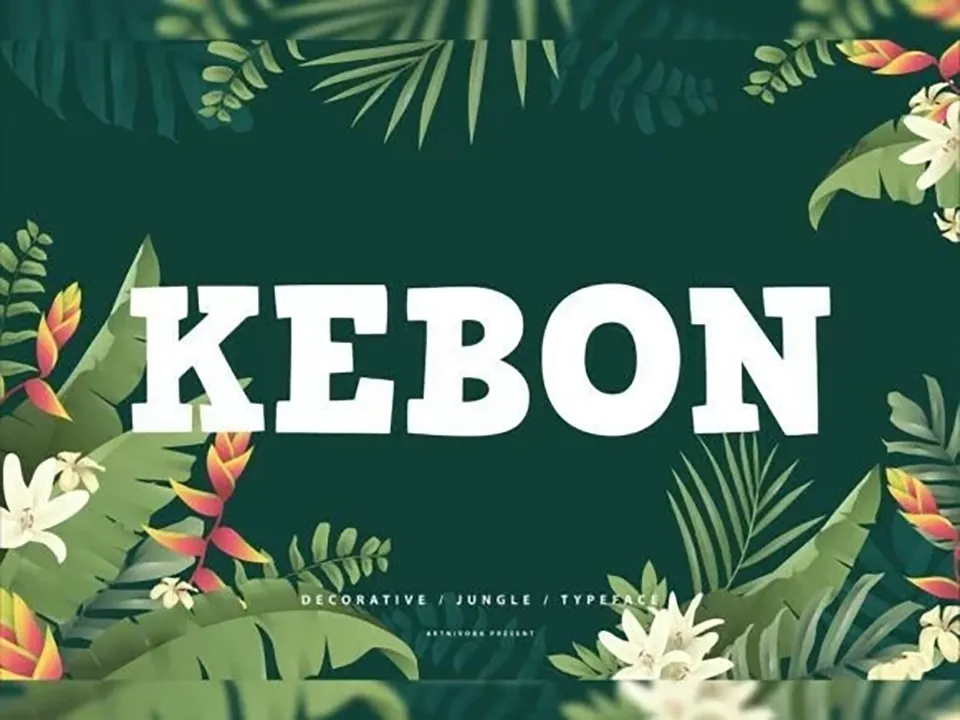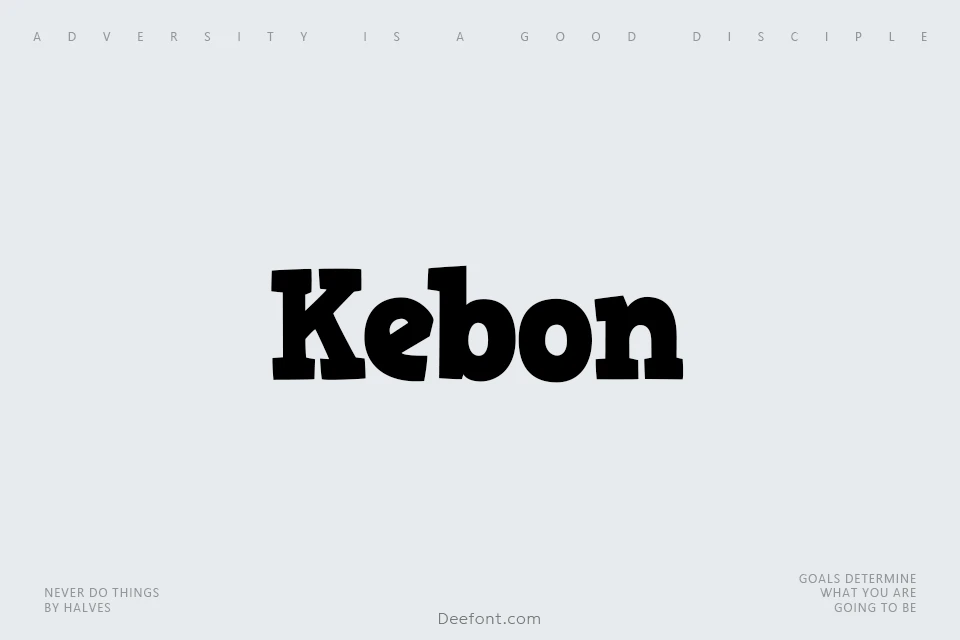
Kebon Font
Kebon Font is a simple and decorative typeface, perfect for logo designs, magazines, social media graphics, brochures, and more. Its bold and playful style makes it ideal for creative and eye-catching projects.
Designed by:Artnivora Studio